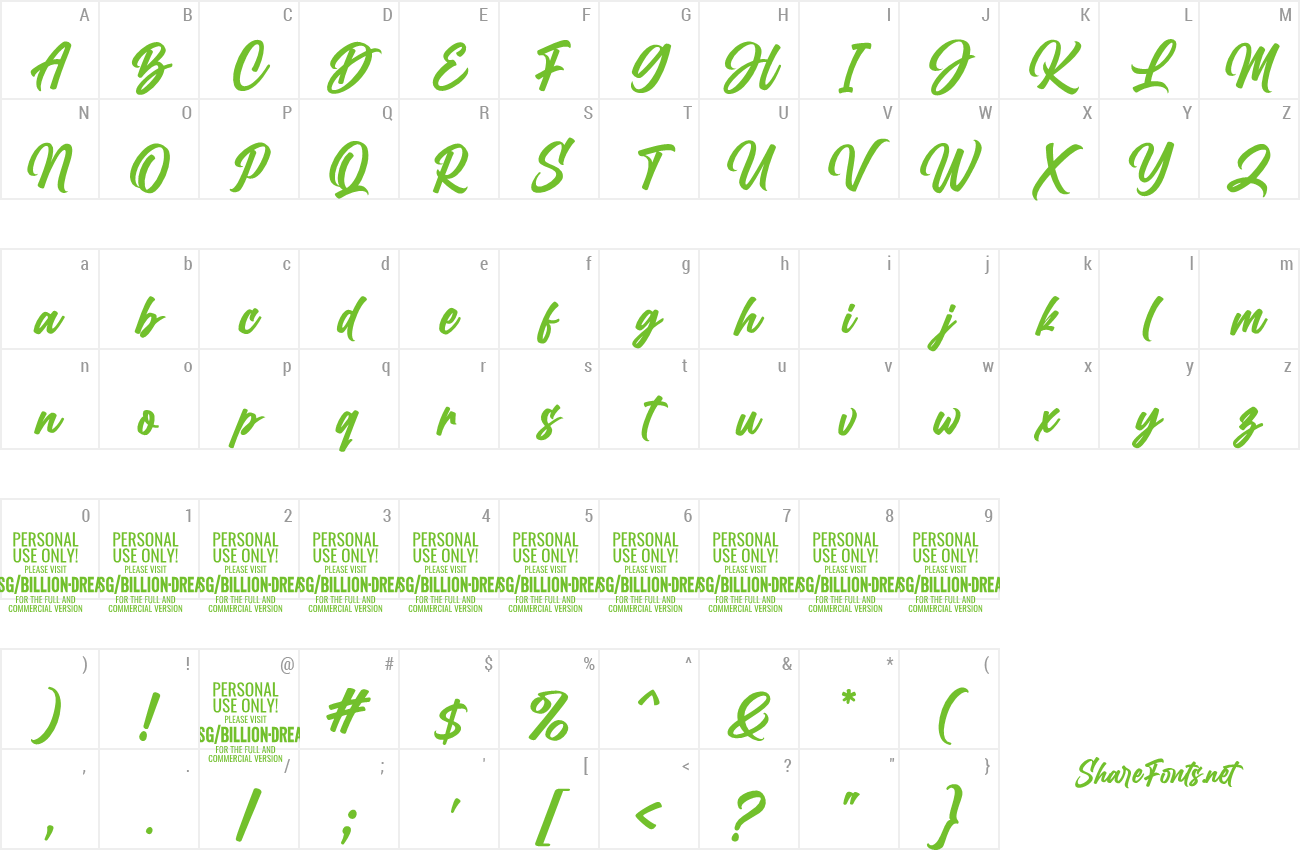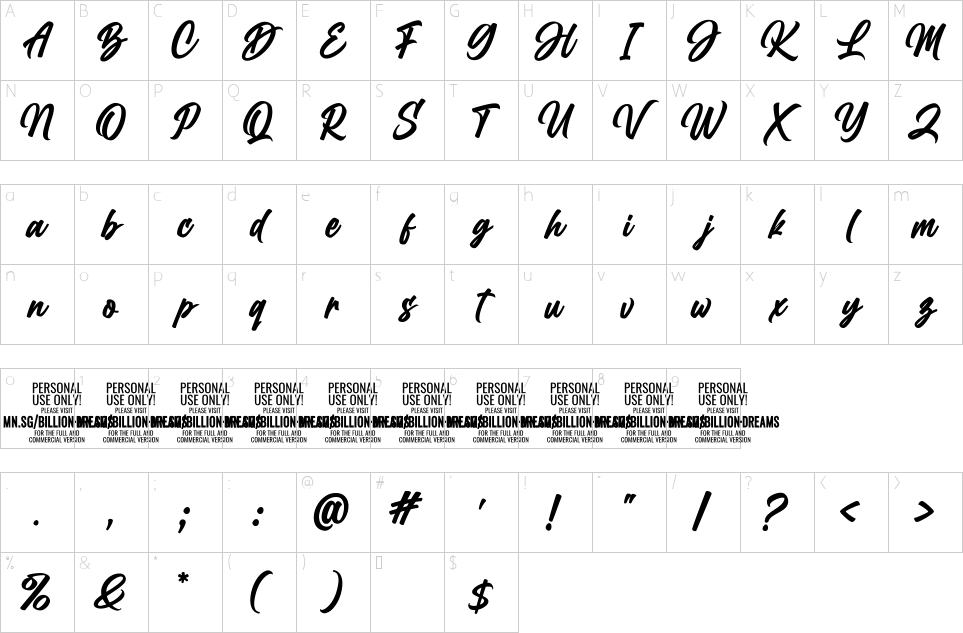
Billion Dreams Font
Billion Dreams Font - It contains stylistic alternates, swash. Web billion dreams is a cool logotype script font. Web billion dreams regular otf waterfall 228 characters about this is font free for personal use if you need for commercial use, you can buy directly to me, via email. Click now to create a custom image with. Click to view another set. Web billion dreams à € by mans greback. It has thick brush strokes that gives character and personality to any graphic. Download free billion dreams font,. Web free download of billion dreams font. 3,407,437 downloads (1,532 yesterday) 8 comments free for personal use.
It contains stylistic alternates, swash. 3,407,437 downloads (1,532 yesterday) 8 comments free for personal use. Click to view another set. Web billion dreams regular otf waterfall 228 characters about this is font free for personal use if you need for commercial use, you can buy directly to me, via email. Web billion dreams is a cool logotype script font. Web billion dreams à € by mans greback. It has thick brush strokes that gives character and personality to any graphic. Download free billion dreams font,. Web free download of billion dreams font. Web check out free fonts below, download or generate text graphics and logos with them online.
Web billion dreams à € by mans greback. Web free download of billion dreams font. Web check out free fonts below, download or generate text graphics and logos with them online. Click now to create a custom image with. Click to view another set. Web billion dreams regular otf waterfall 228 characters about this is font free for personal use if you need for commercial use, you can buy directly to me, via email. Download free billion dreams font,. 3,407,437 downloads (1,532 yesterday) 8 comments free for personal use. It contains stylistic alternates, swash. It has thick brush strokes that gives character and personality to any graphic.
It contains stylistic alternates, swash. It has thick brush strokes that gives character and personality to any graphic. Web billion dreams à € by mans greback. Web check out free fonts below, download or generate text graphics and logos with them online. 3,407,437 downloads (1,532 yesterday) 8 comments free for personal use.
Billion Dreams Font 1001 Free Fonts
Free font Billion Dreams preview Free Fonts Pro
Web billion dreams is a cool logotype script font. Download free billion dreams font,. It contains stylistic alternates, swash. Click now to create a custom image with. Web billion dreams regular otf waterfall 228 characters about this is font free for personal use if you need for commercial use, you can buy directly to me, via email.
Web billion dreams regular otf waterfall 228 characters about this is font free for personal use if you need for commercial use, you can buy directly to me, via email. Download free billion dreams font,. It has thick brush strokes that gives character and personality to any graphic. Click to view another set. Web billion dreams is a cool logotype.
Billion Dreams Fonts Shmonts
Download free billion dreams font,. It has thick brush strokes that gives character and personality to any graphic. It contains stylistic alternates, swash. Click to view another set. Web billion dreams is a cool logotype script font.
Download Billion Dreams font
Web billion dreams à € by mans greback. Download free billion dreams font,. It has thick brush strokes that gives character and personality to any graphic. Web check out free fonts below, download or generate text graphics and logos with them online. Web billion dreams is a cool logotype script font.
Billion Dreams Font
Web billion dreams à € by mans greback. It contains stylistic alternates, swash. It has thick brush strokes that gives character and personality to any graphic. Web free download of billion dreams font. Download free billion dreams font,.
Web billion dreams is a cool logotype script font. Web billion dreams à € by mans greback. It has thick brush strokes that gives character and personality to any graphic. Web free download of billion dreams font.